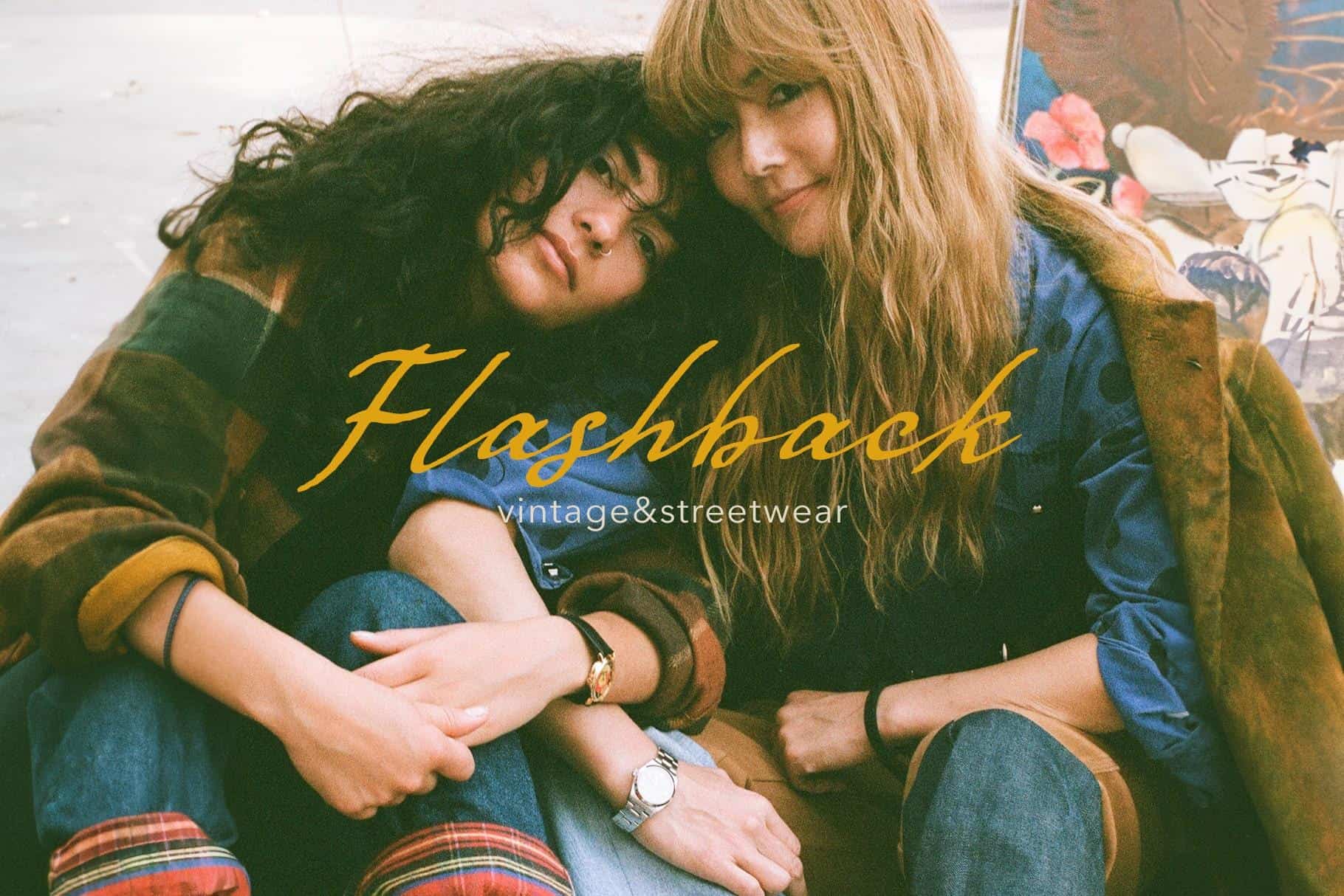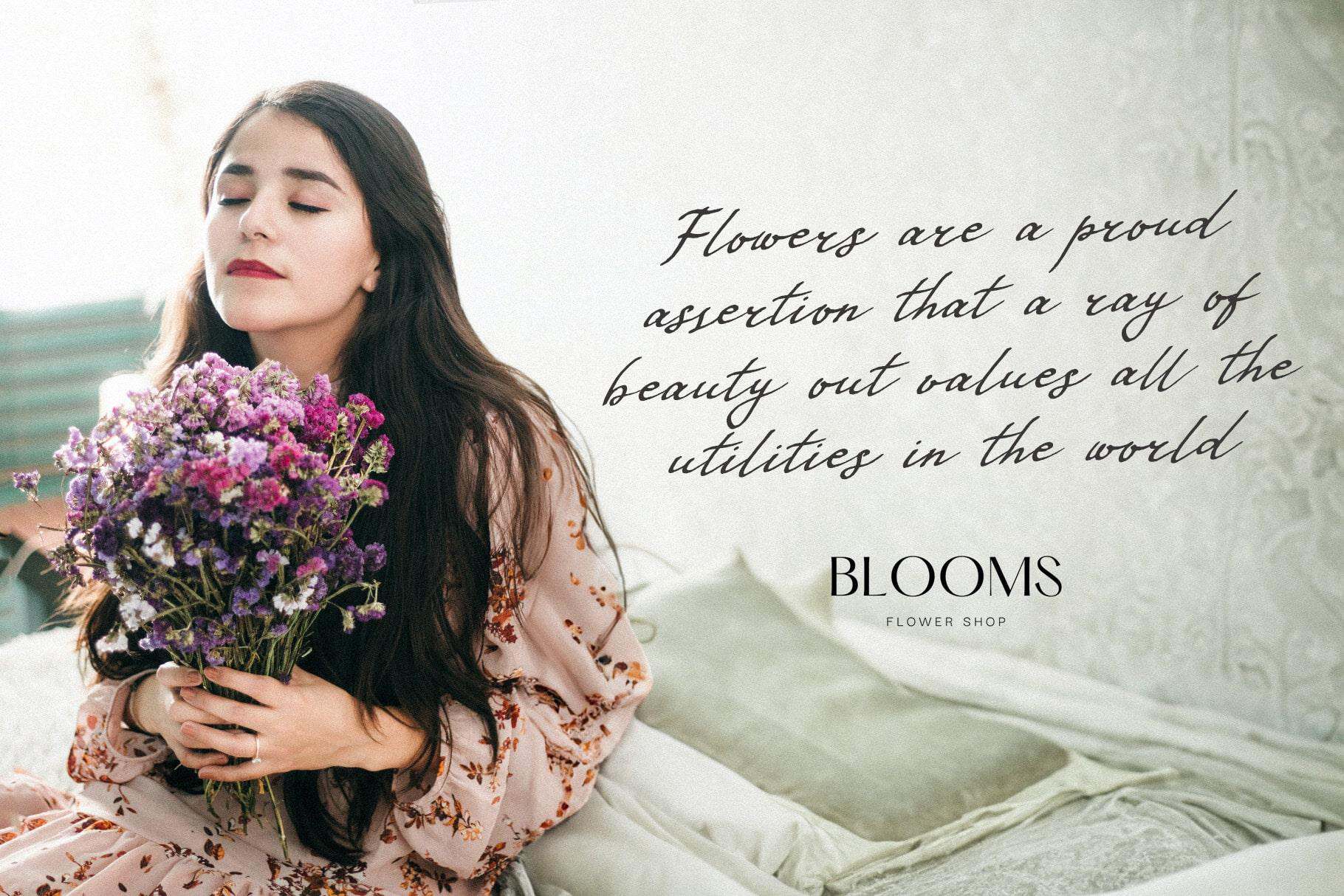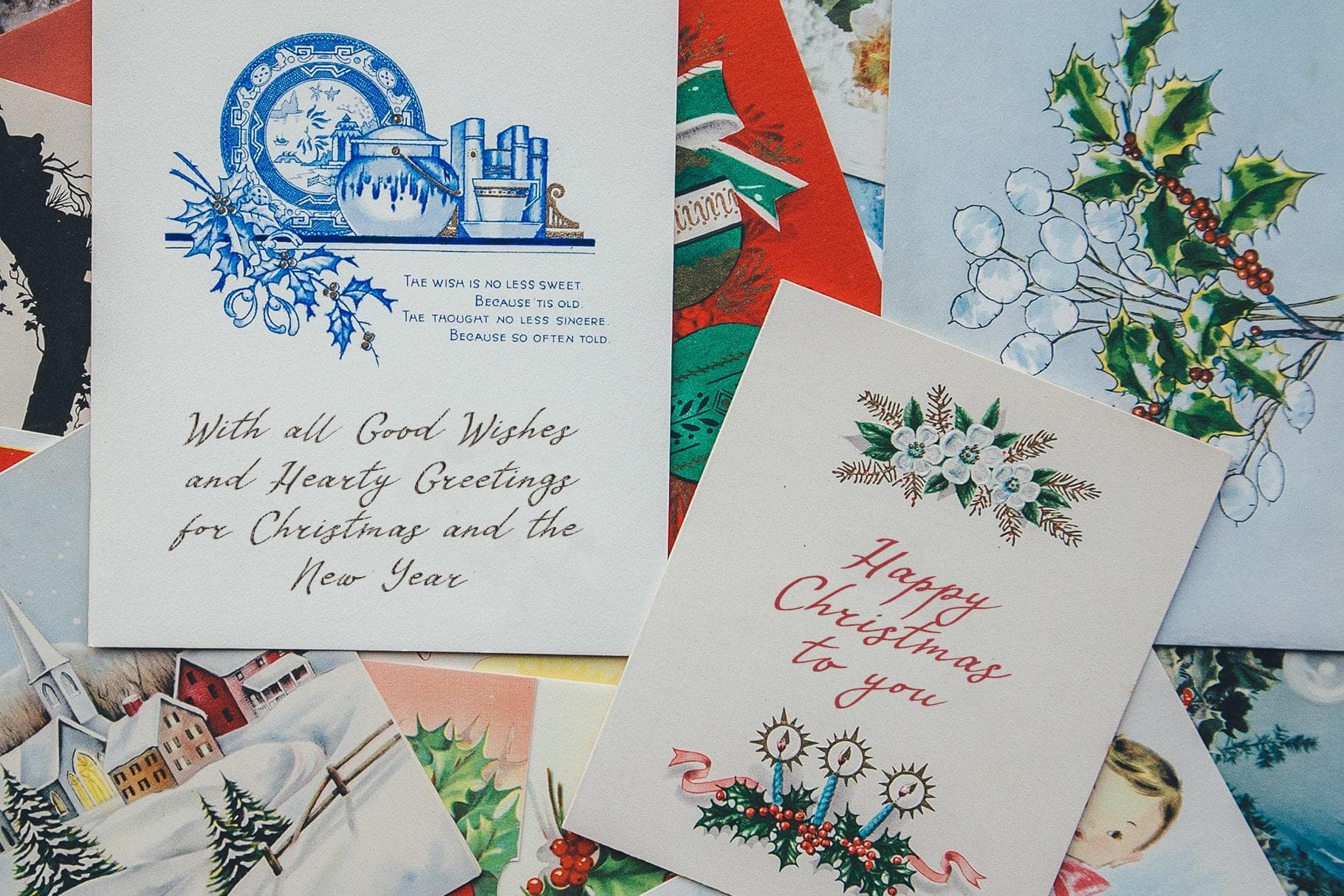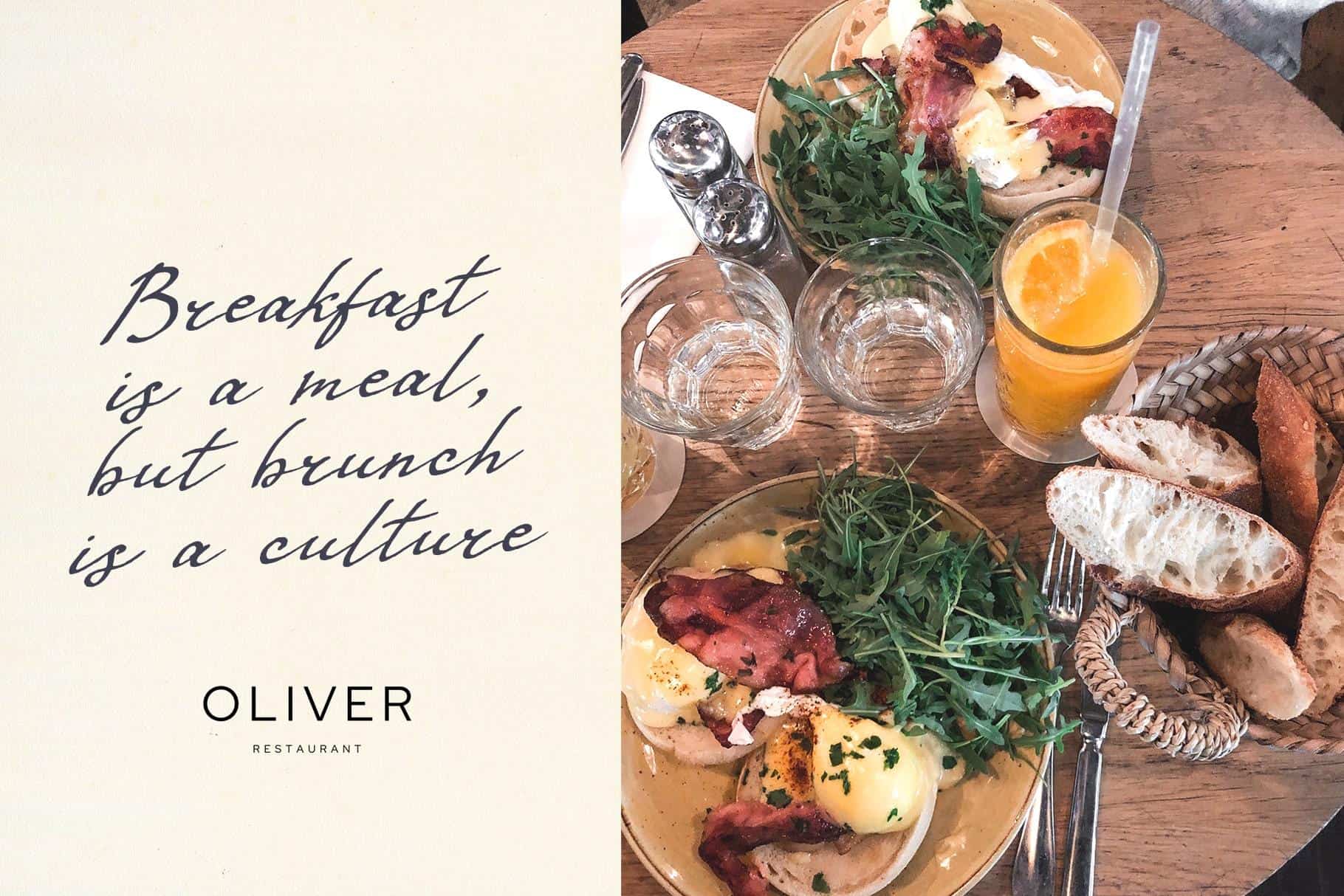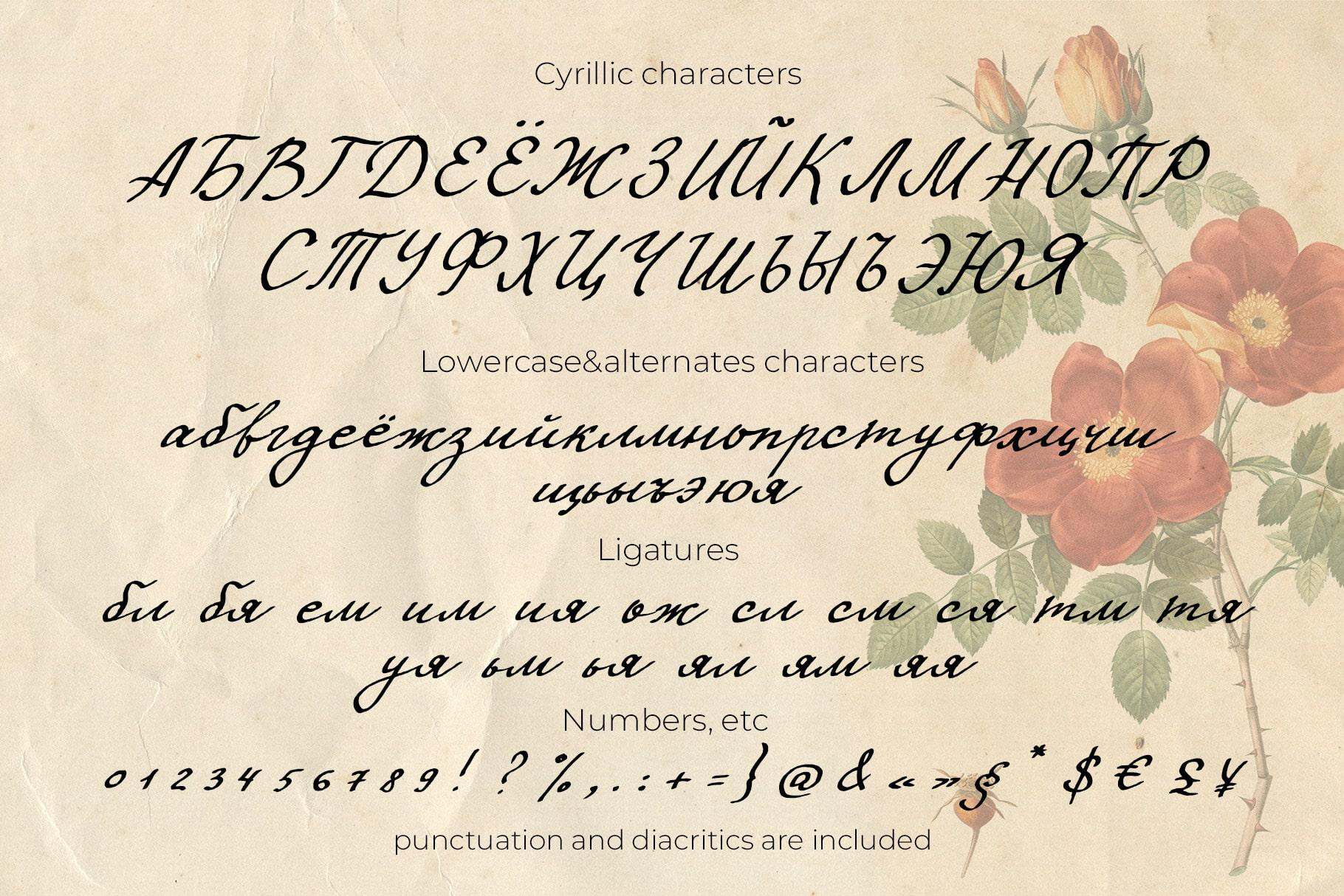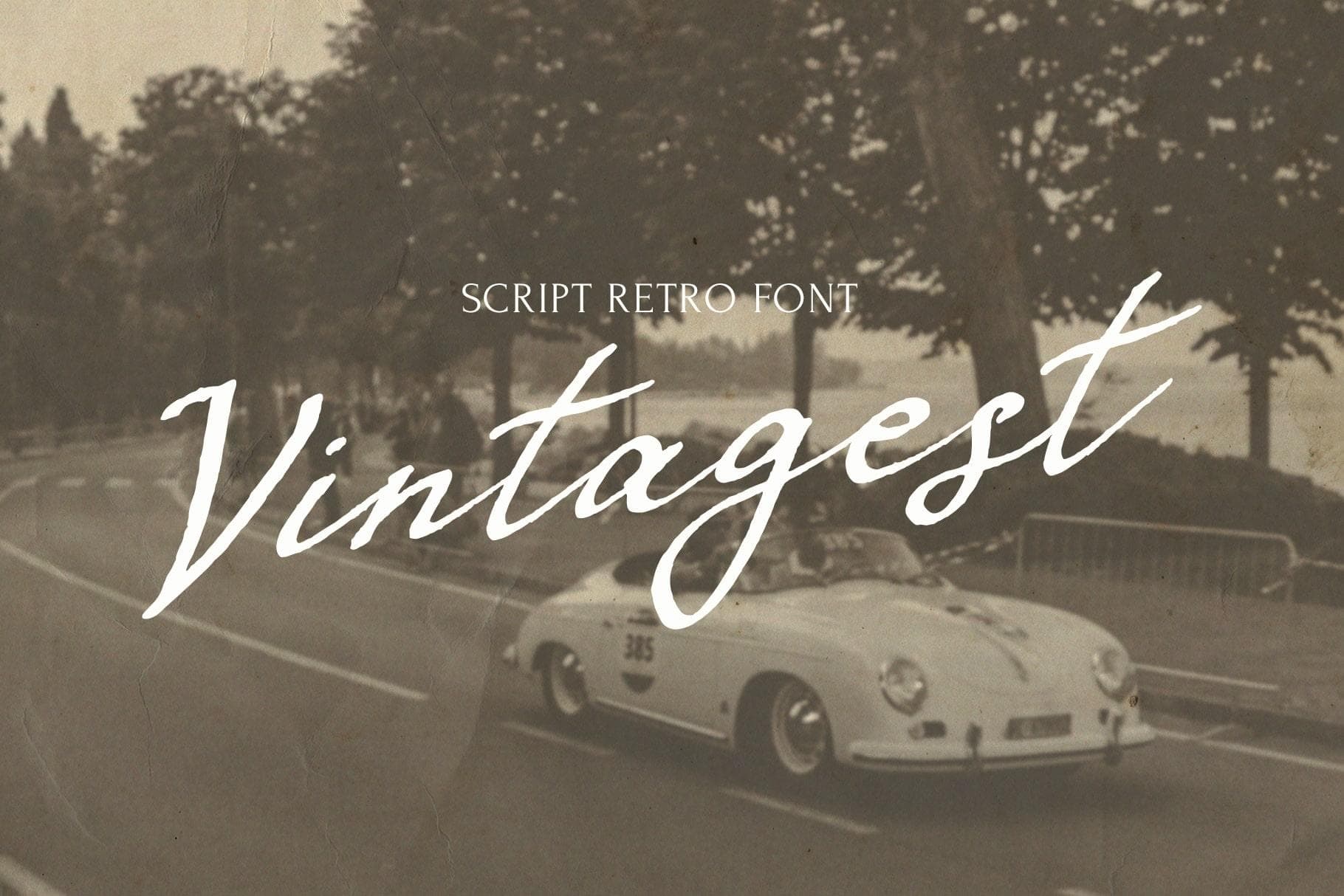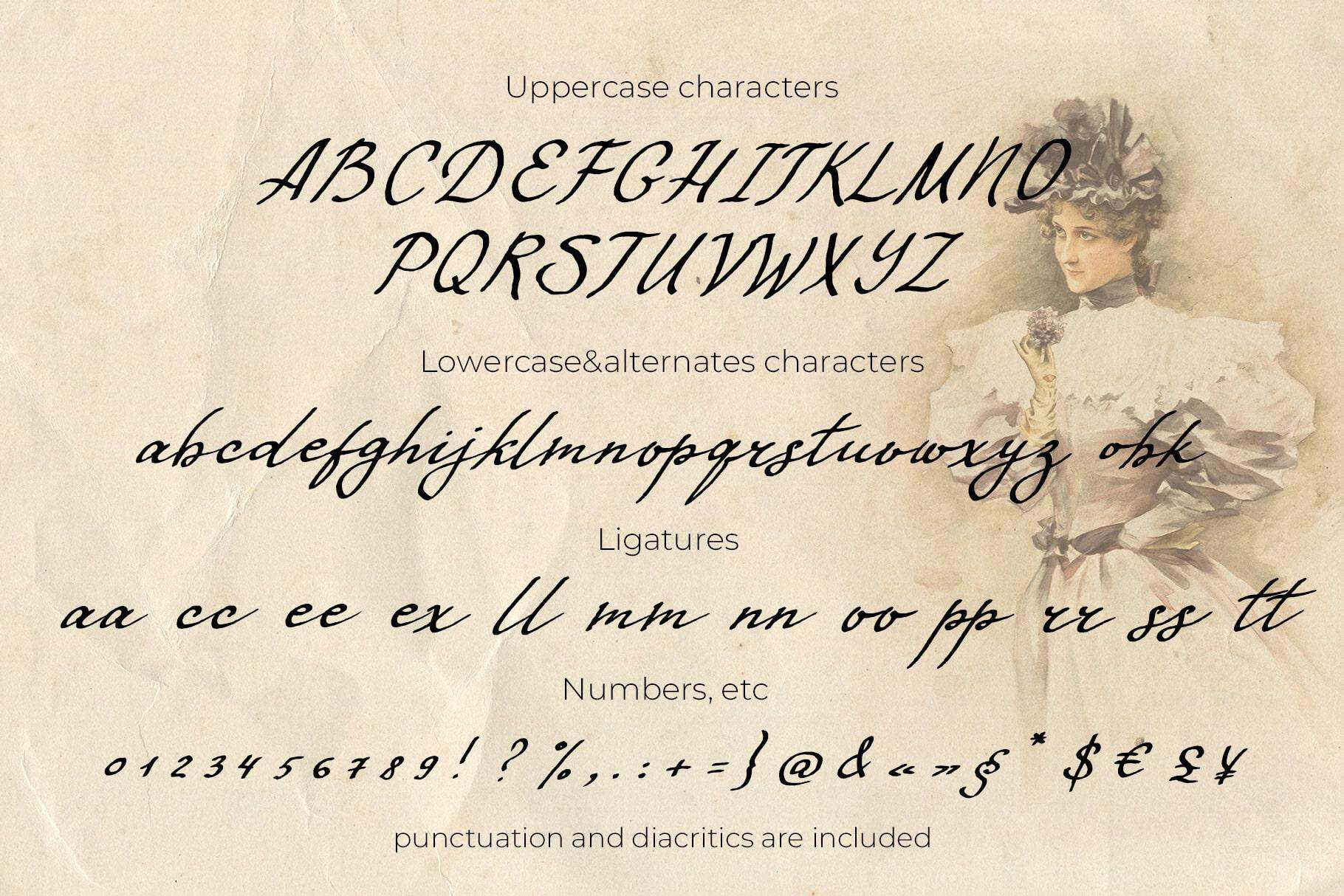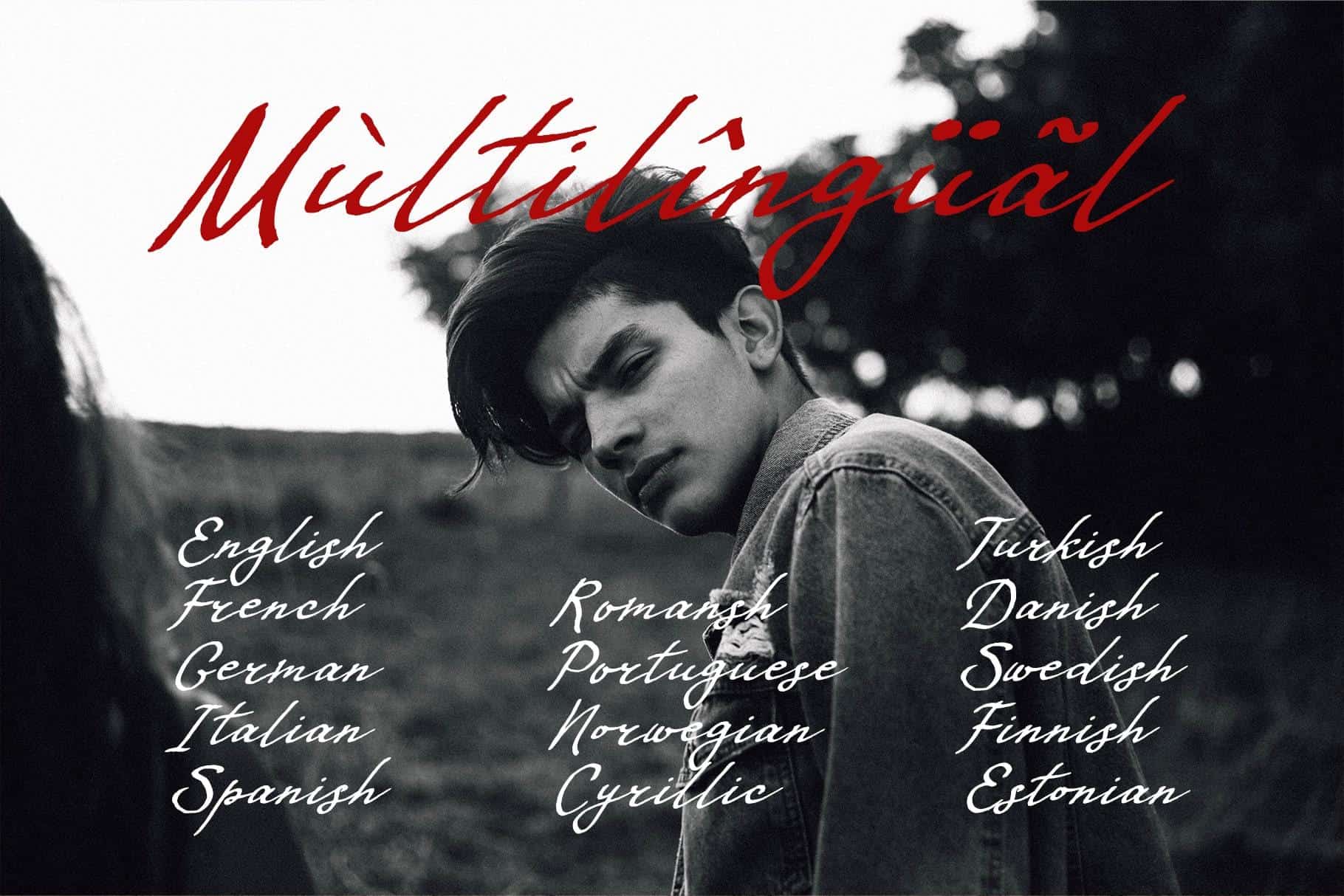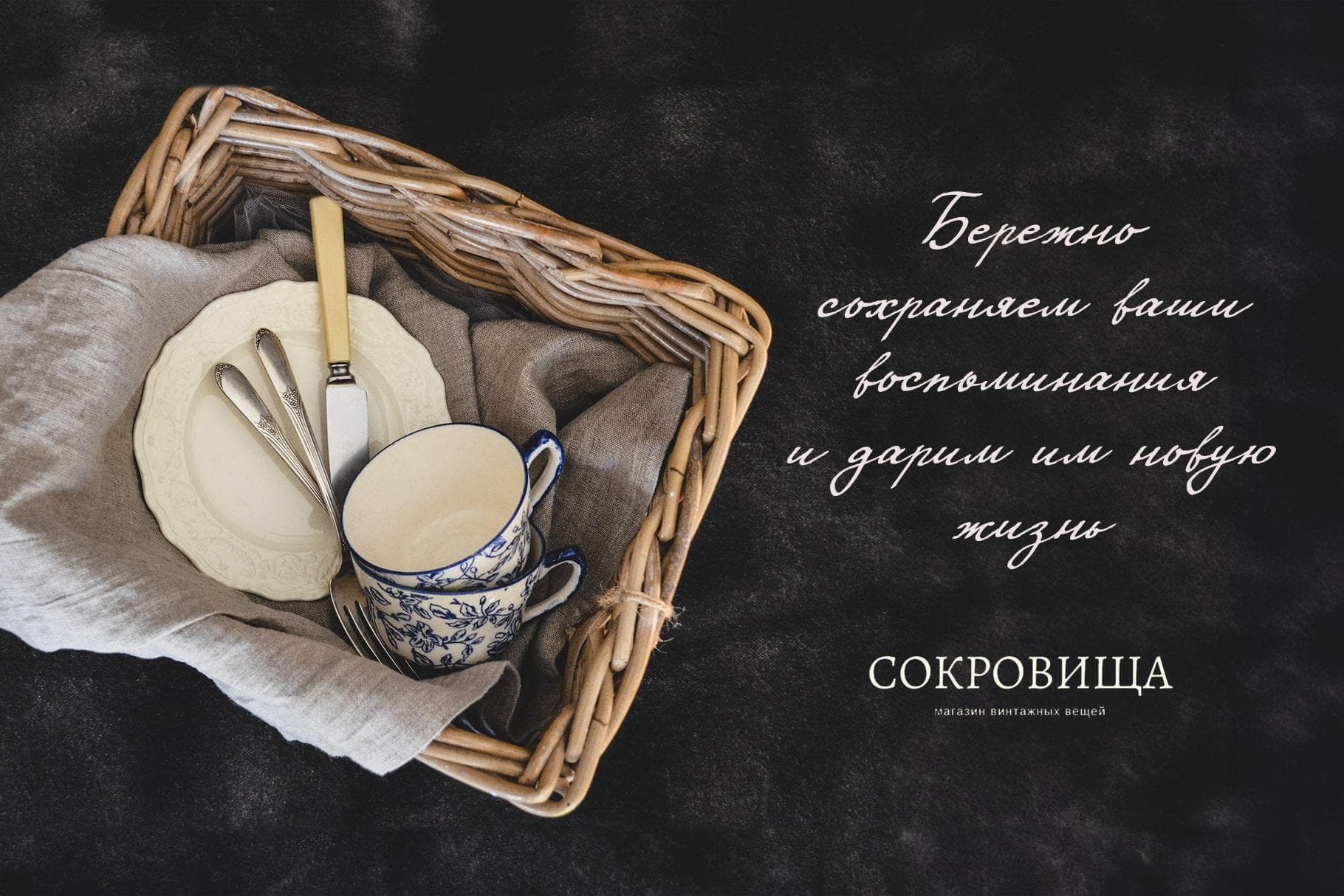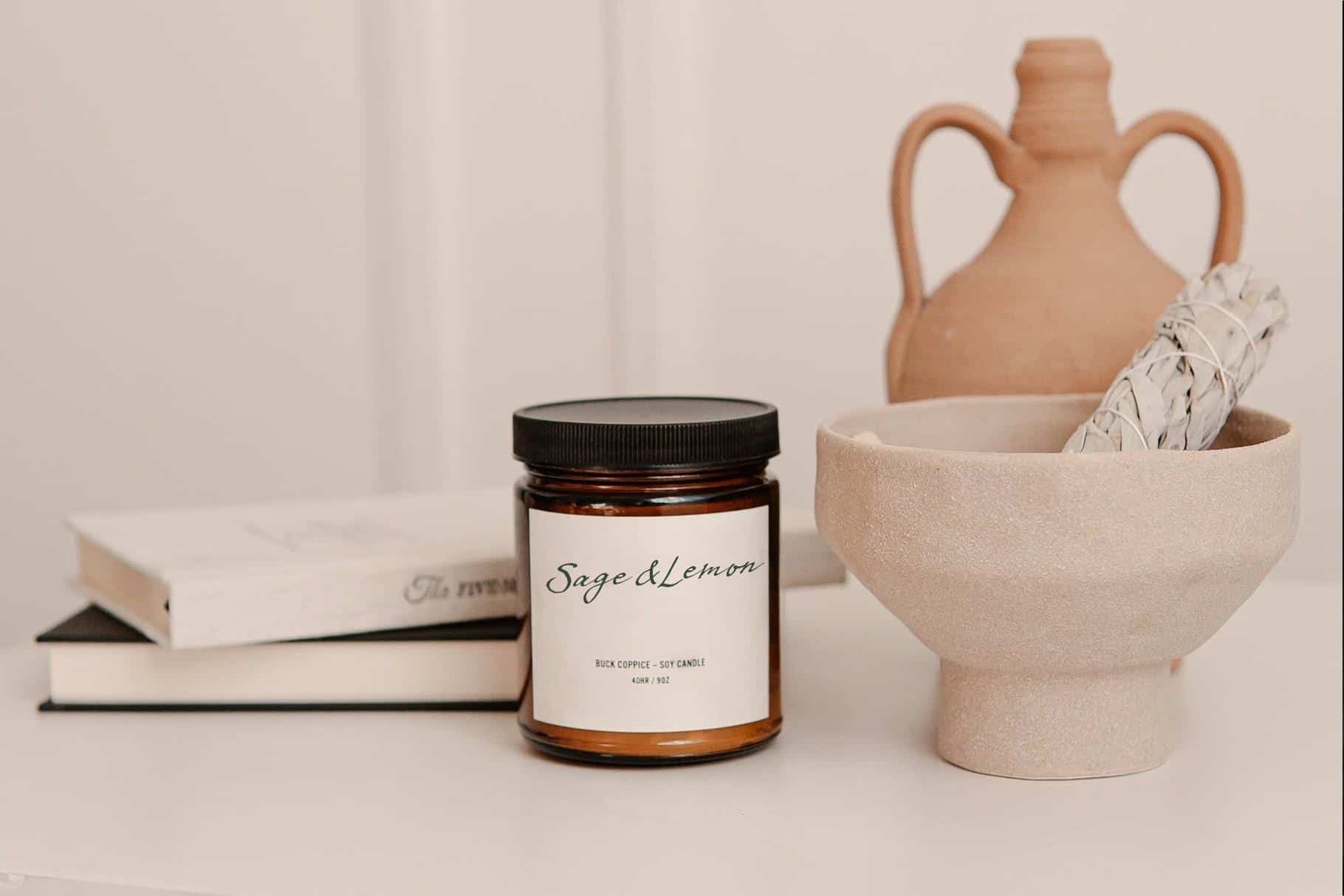
VINTAGEST retro script handwriting font signature typeface
This is Vintagest — my new handwritten retro font written with a flat pen and ink
This is Vintagest — my new handwritten retro font written with a flat pen and ink. This font seems to be from the past, it is written diligently, very carefully, as our grandmothers wrote in their letters to loved ones. This vintage typeface contains a large number of ligatures and alternative characters. Supports many languages, including Cyrillic. The font is suitable for design for various things, including logo design, packaging, advertising, product design, websites, blogs and much more.
VINTAGEST has extensive language support, it includes English, French, German, Italian, Spanish, Portuguese, Danish, Norwegian, Swedish, Finnish, Estonian, Romansh, Turkish, Cyrillic.